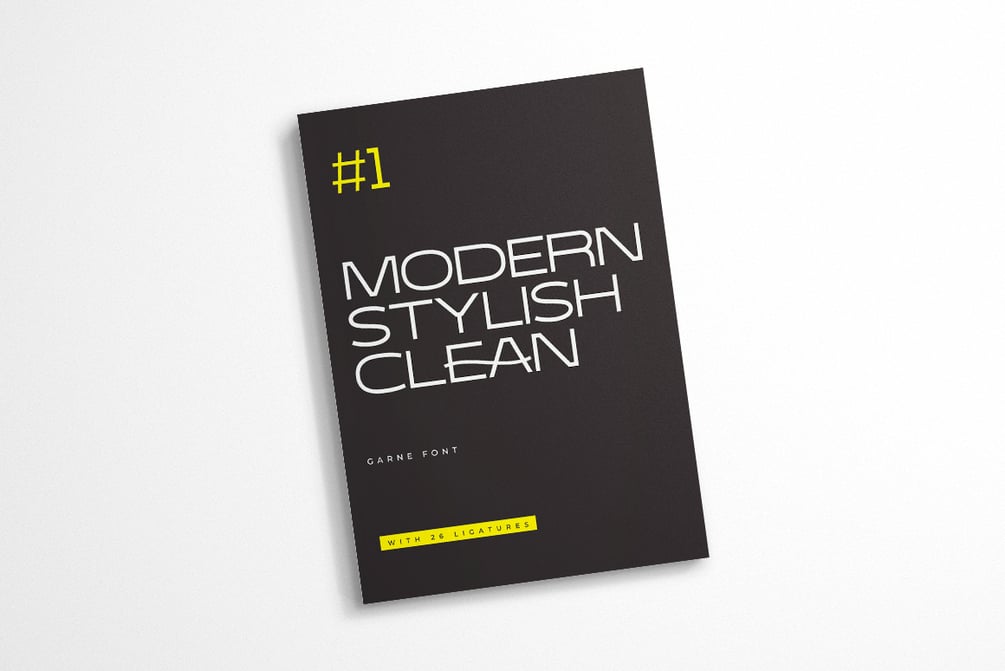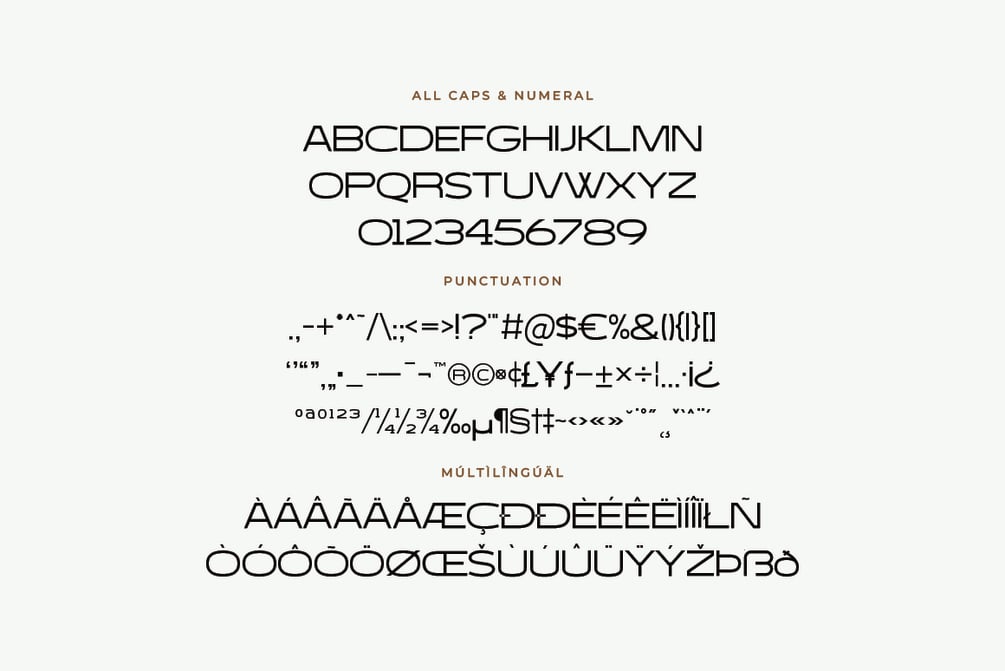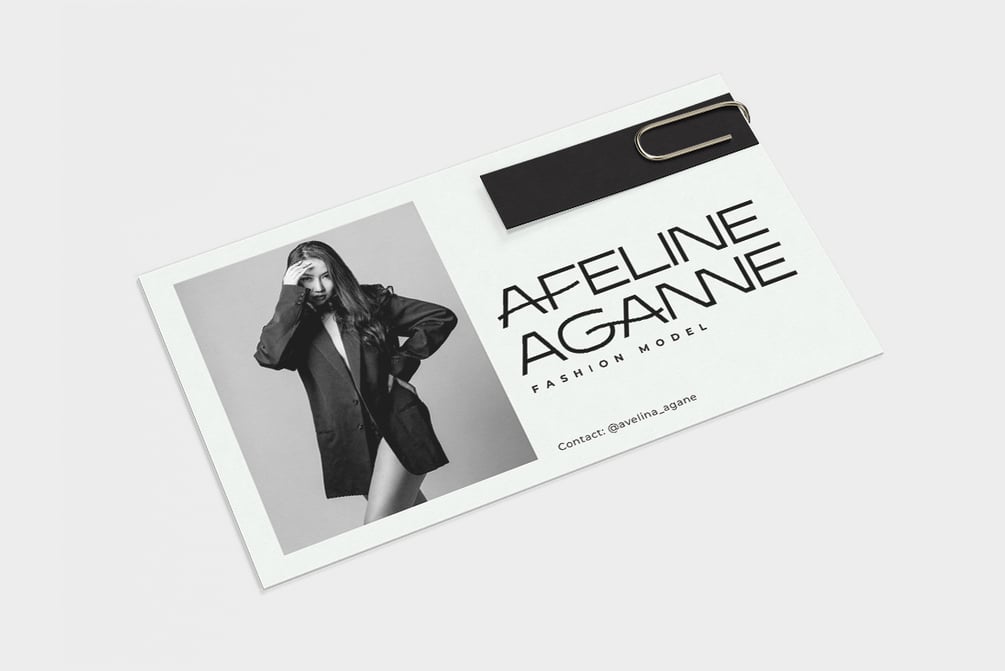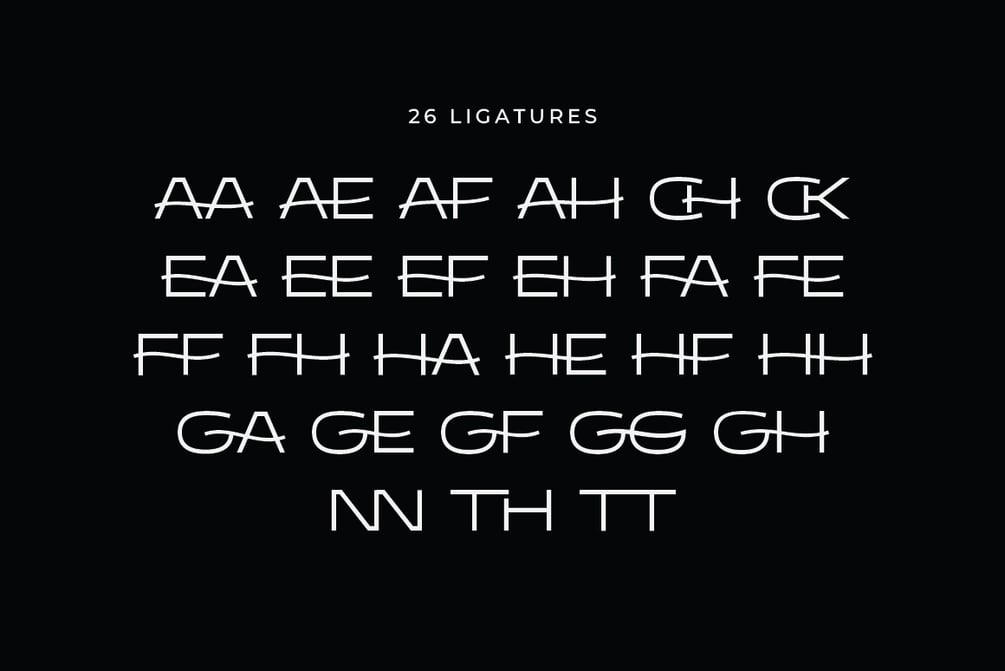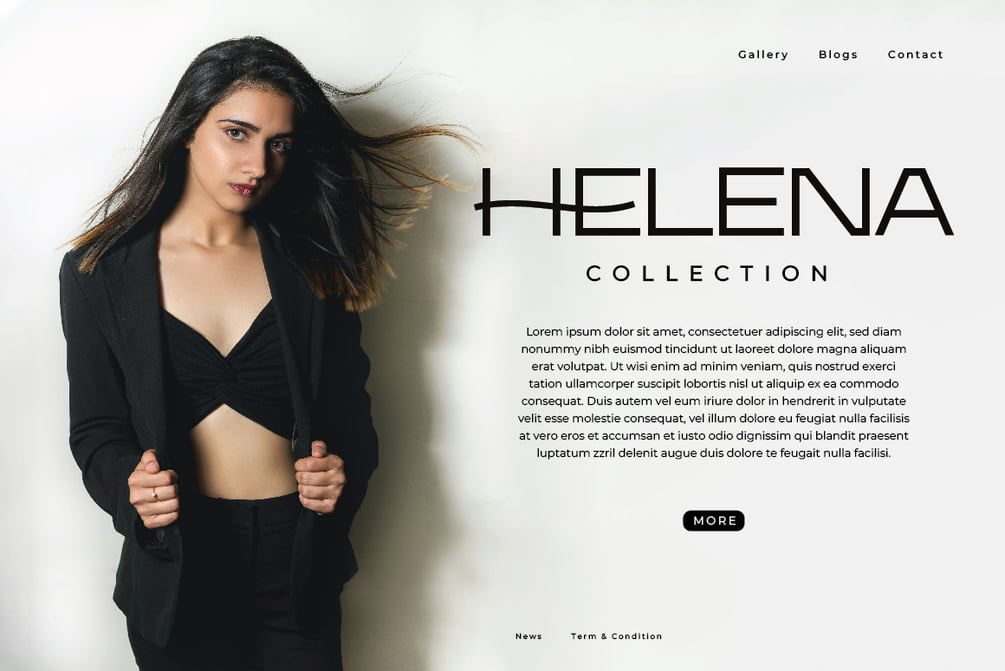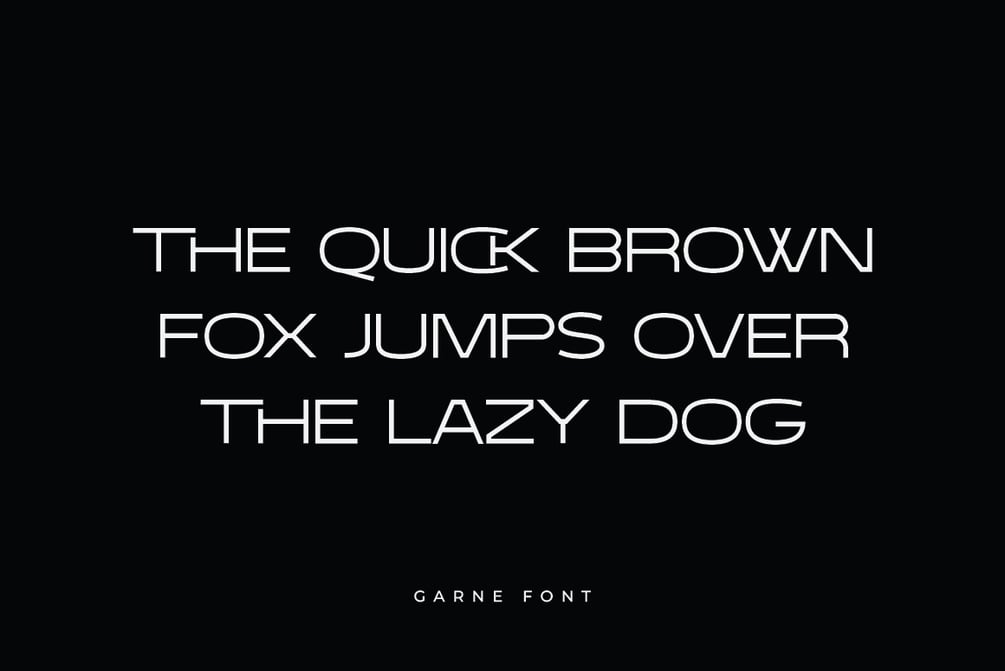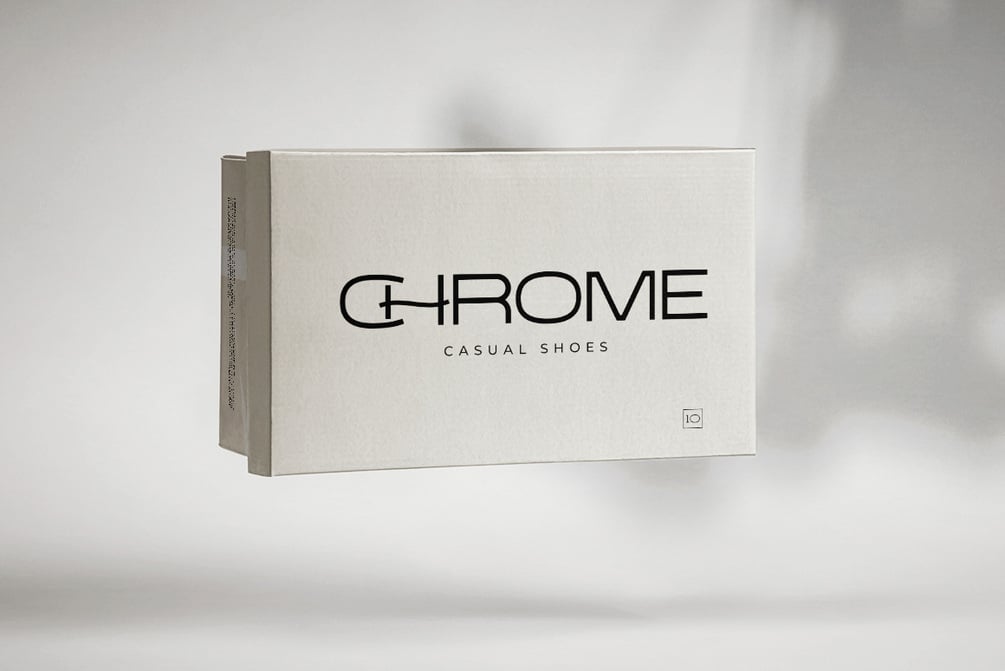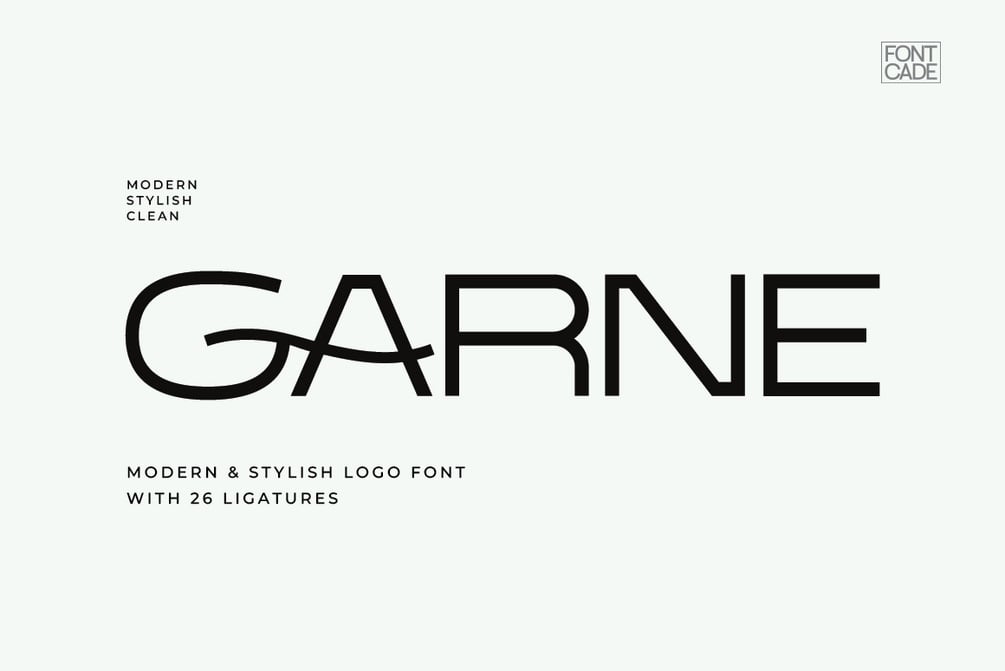
Garne Font
Garne is a sleek and versatile logo font designed with a modern touch. Featuring 26 elegant ligatures, it brings stylish letterform combinations that add character and sophistication. Ideal for branding, logos, and various design projects, Garne delivers a refined and contemporary look to any visual concept.
• All Caps, Numeral & Punctuation
• 26 Stylish Ligatures